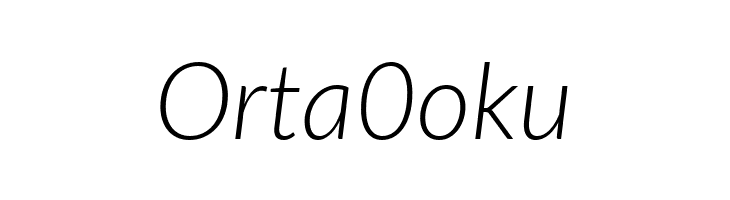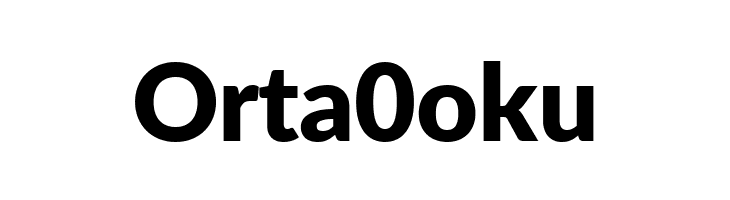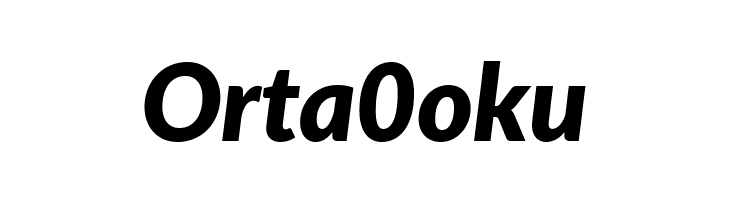
A bold, modern sans-serif typeface with clean lines and excellent readability.
A bold, italic sans-serif font with a modern and dynamic style.
A bold, modern sans-serif font with a clean and confident appearance.
A modern, bold, and italicized font with a clean and dynamic style.
A clean, modern sans-serif font with an extra light weight and sleek design.
A sleek, extra-light, italic sans-serif font with a modern and elegant style.
A sleek, modern hairline italic font with elegant and fluid characteristics.
A modern, italicized sans-serif font with clean lines and excellent readability.
A modern, light sans-serif font with clean lines and excellent readability.
A sleek, modern, light italic font with smooth curves and balanced spacing.